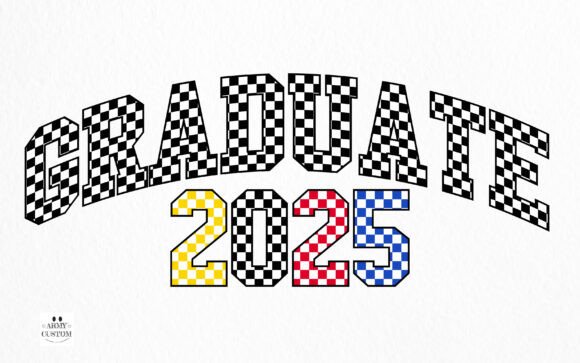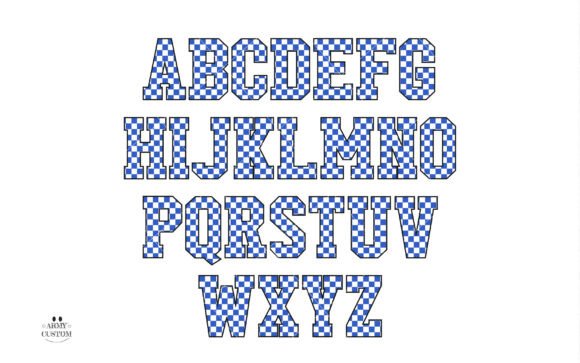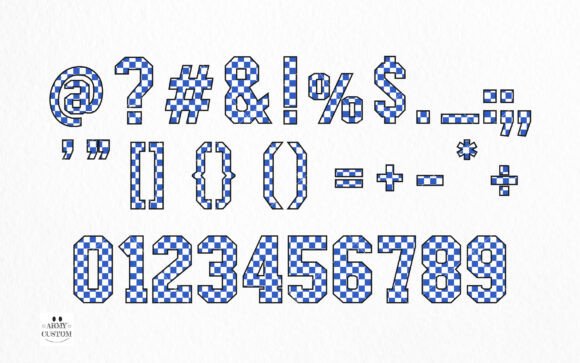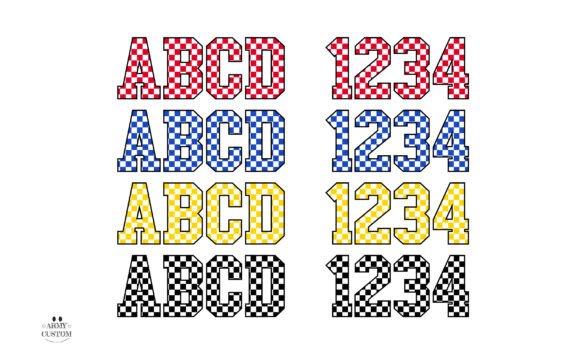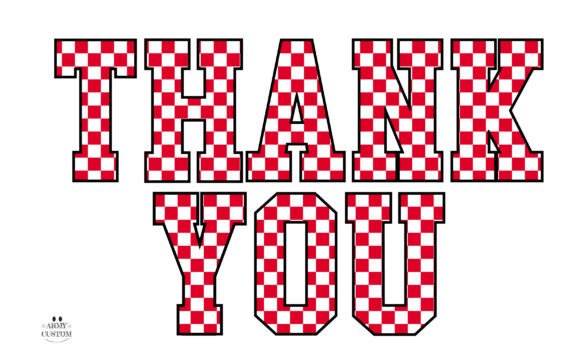
Unleash the Thrill of Victory with Checkered Army Bundle Font
Are you ready to add a burst of energy and excitement to your designs? Look no further than the Checkered Army Bundle Font, a captivating typeface that embodies the exhilarating spirit of racing and competition. Inspired by the iconic racing flag, this font is perfect for designers and crafters who want to inject a sense of speed, triumph, and rivalry into their work.
The Inspiration Behind Checkered Army Bundle Font
The Checkered Army Bundle Font is designed to capture the adrenaline rush of crossing the finish line first. Its unique design simulates the unmistakable pattern of a racing flag, evoking feelings of excitement, energy, and competition. Whether you’re working on a project related to sports, racing, or simply want to add a touch of dynamism to your design, this font is the perfect choice.
Key Features of Checkered Army Bundle Font
- Racing Flag Inspiration: The font’s design is inspired by the iconic racing flag, making it perfect for projects that require a sense of speed and competition.
- Unique Pattern: The checkered pattern of the font adds a touch of excitement and energy to any design.
- Vibrant Energy: The font’s design is suited for those who strive for gusto and vibrant energy in their designs.
- Competitive Spirit: The Checkered Army Bundle Font is a testimony to the fast-paced world of competitive sports, making it perfect for projects that require a sense of rivalry and triumph.
The Checkered Army Bundle Font is a versatile typeface that can be used in a variety of design projects, including:
- Logo Design: Create a bold and eye-catching logo that captures the spirit of competition and speed.
- Typography: Add a touch of excitement to your typography projects with the Checkered Army Bundle Font.
- Branding: Use the font to create a brand identity that exudes energy, excitement, and competition.
- Packaging Design: Add a burst of energy to your packaging designs with the Checkered Army Bundle Font.
Tips for Using Checkered Army Bundle Font
To get the most out of the Checkered Army Bundle Font, here are some tips:
- Use it boldly: The Checkered Army Bundle Font is designed to make a statement, so don’t be afraid to use it in bold and eye-catching ways.
- Experiment with colors: The font’s design looks great in a variety of colors, so experiment with different color schemes to find the one that works best for your project.
- Pair it with complementary fonts: The Checkered Army Bundle Font pairs well with a variety of fonts, so experiment with different combinations to find the one that works best for your project.
The Checkered Army Bundle Font is a unique and captivating typeface that embodies the exhilarating spirit of racing and competition. With its racing flag-inspired design, unique pattern, and vibrant energy, this font is perfect for designers and crafters who want to add a burst of excitement to their designs. Whether you’re working on a logo design, typography project, or packaging design, the Checkered Army Bundle Font is sure to make a statement.